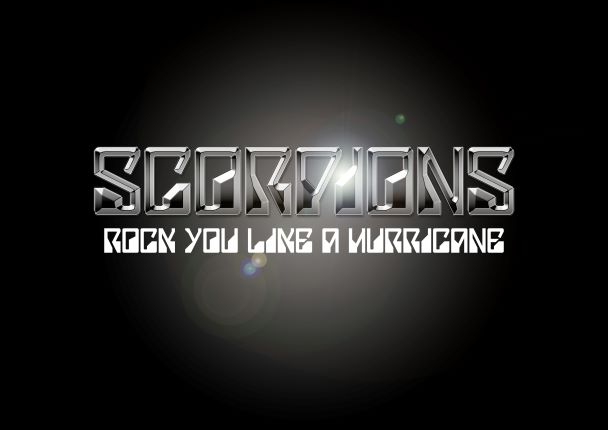
Nice recreation, I also made a similar one (FS Superstar).
@graphicfever - I agree with @V. Sarela (Yautja), this is a very nice recreation. (And in your description above, "Lady Starlight" is Ray Larabie/Typodermic Fonts' version from 1999 that was also inspired by the design, so it's really not the "original" font.) ;^)
Congratulations! FontStruct Staff have deemed your FontStruction worthy of special mention. “Scorpions” is now a Top Pick.
Very nice, may we all dream until our dreams come true.
Mistakes:
The Q looks like a no sign.
Can you fix the font please?
@Fgm12345 - Design choices are not "mistakes" and require no fixing.
@Fgm12345, it was a design choice personally made by me and I felt no other option would make it look more like a Q than that solution using the specific glyphs of the font.